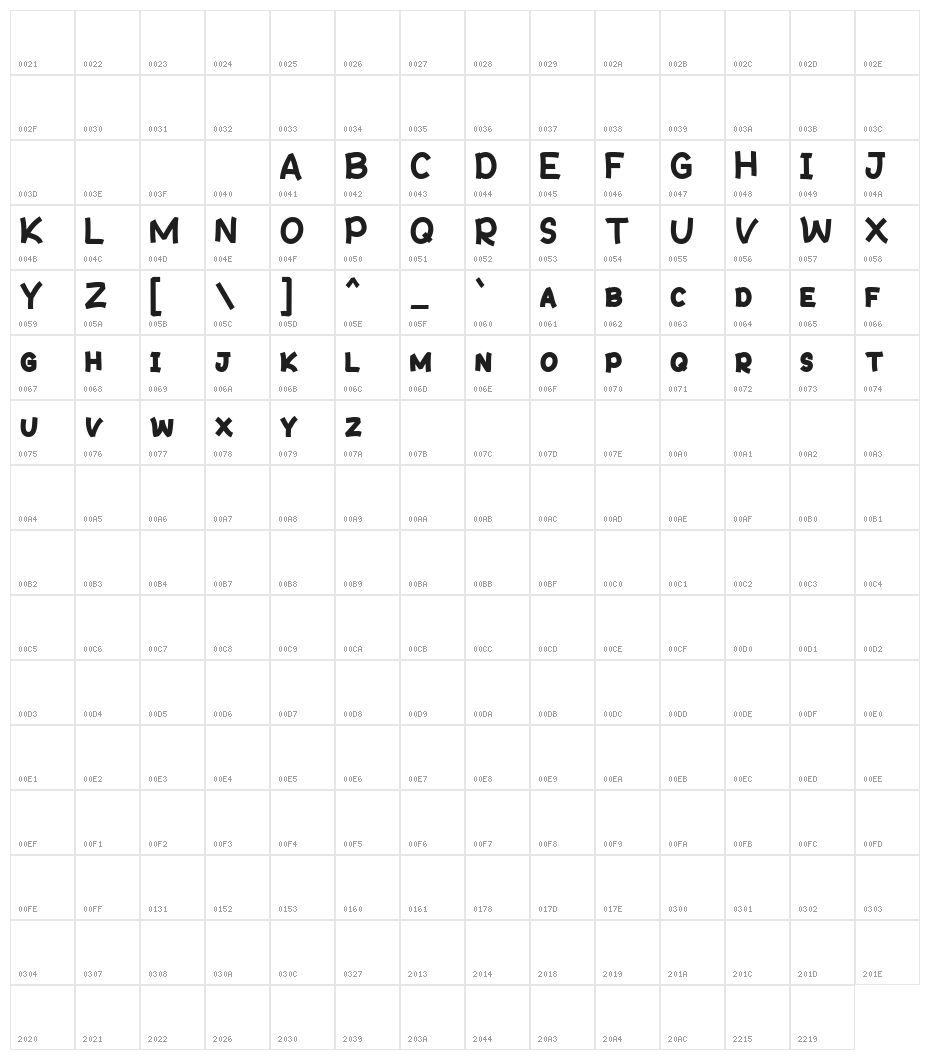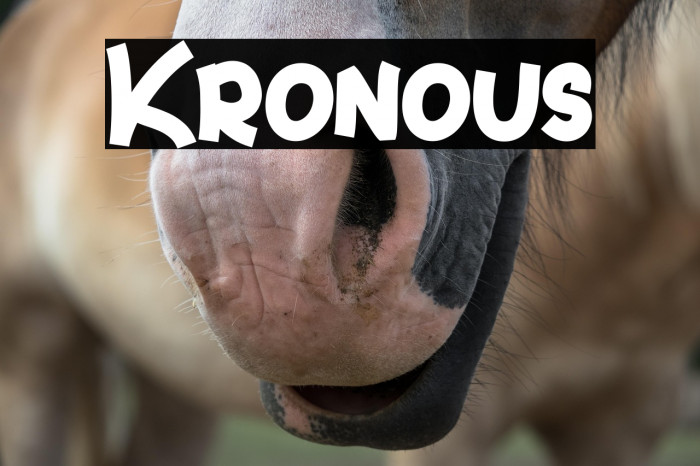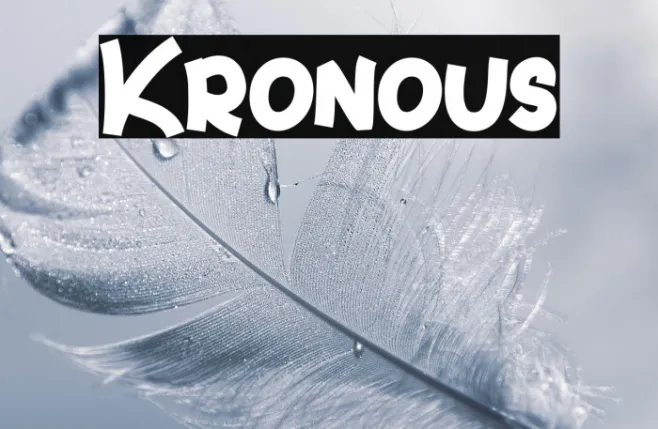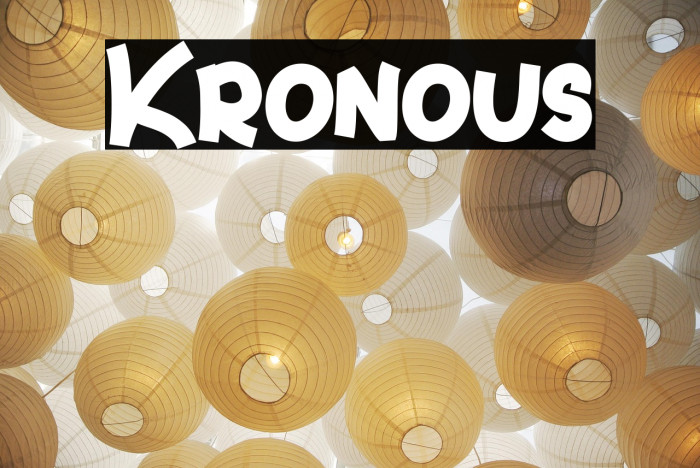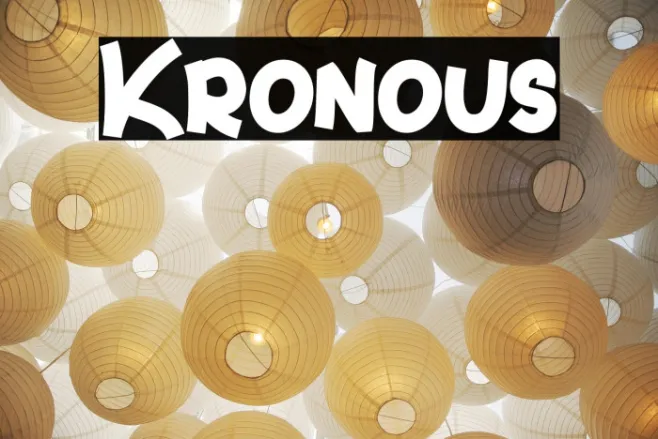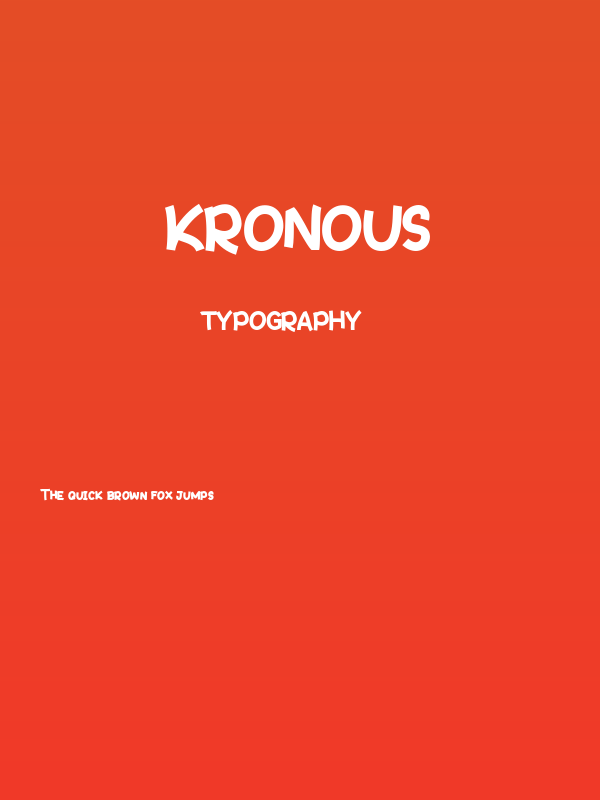
Kronous Font
Kronous Description
This font features a bold and playful style, characterized by its thick, rounded strokes and slightly irregular shapes. The letters have a cartoonish, dynamic appearance, with exaggerated curves and angles that give them a lively and energetic feel. The uppercase letters are particularly striking, with a strong presence that commands attention. The overall design is both fun and approachable, making it suitable for a variety of creative applications. The font's unique personality is enhanced by its consistent weight and width, ensuring readability while maintaining its distinctive character.
Overall StylePlayful, Cartoonish
Proposed ProjectsIdeal for children's books, comic strips, playful branding, and eye-catching posters.